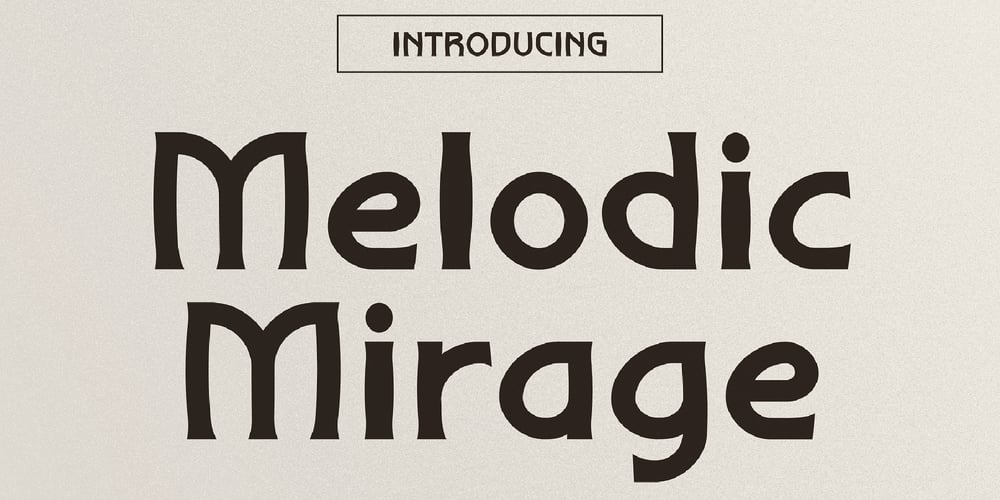
Melodic Mirage Font Family was designed by Igor Ovsyannykov and published by Hipfonts. Melodic Mirage contains 1 styles and family package options. Introducing Melodic Mirage, a breathtaking revival of vintage typography that transports you to a bygone era of elegance and charm. This enchanting typeface captures the essence of classic design, making it an ideal choice for signage, branding, and a plethora of creative projects.Melodic Mirage is not just a typeface; it’s a bridge to the past, offering a blend of nostalgia and timeless beauty. Its revival of vintage design principles makes it a versatile and valuable addition to any designer’s toolkit. Whether you’re creating striking signage, crafting an elegant brand identity, or designing memorable editorial pieces, Melodic Mirage provides the perfect balance of classic charm and modern versatility.Rediscover the magic of vintage typography with Melodic Mirage—the typeface that turns every project into a timeless masterpiece. Embrace the nostalgia, and let your creativity soar with Melodic Mirage.